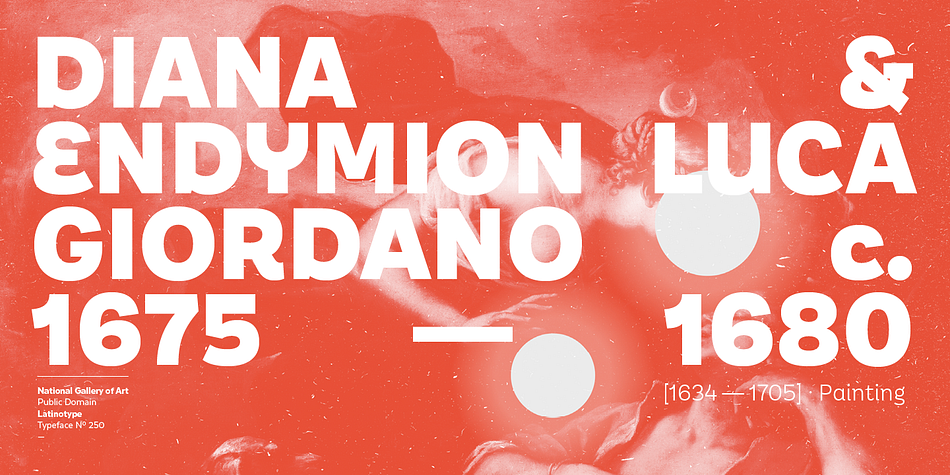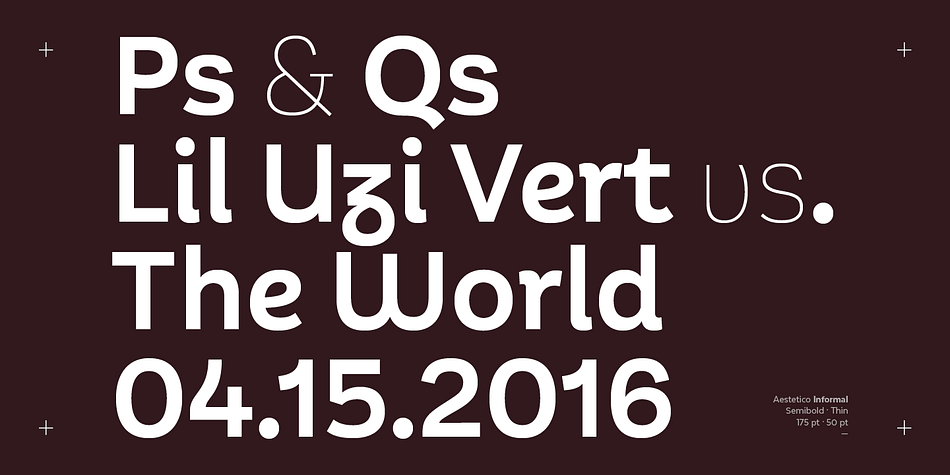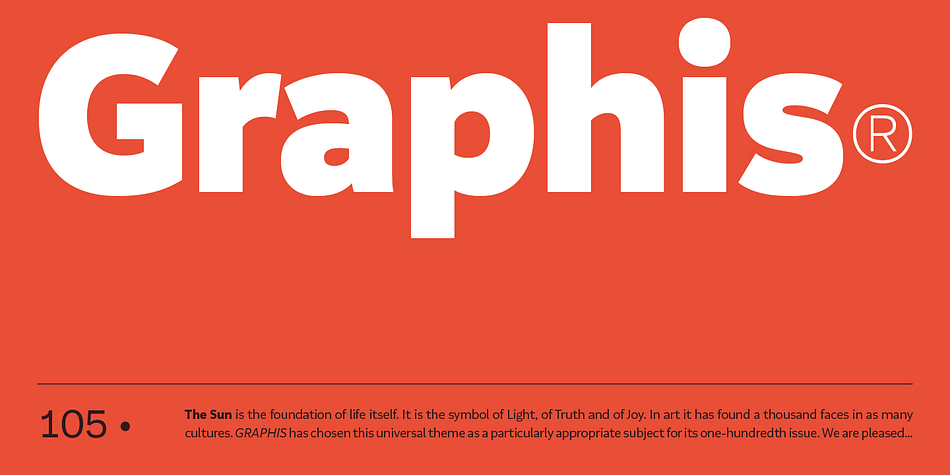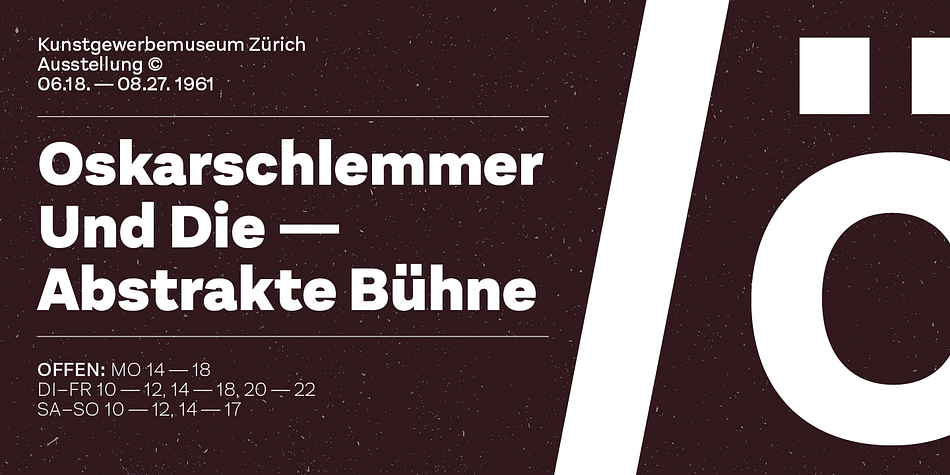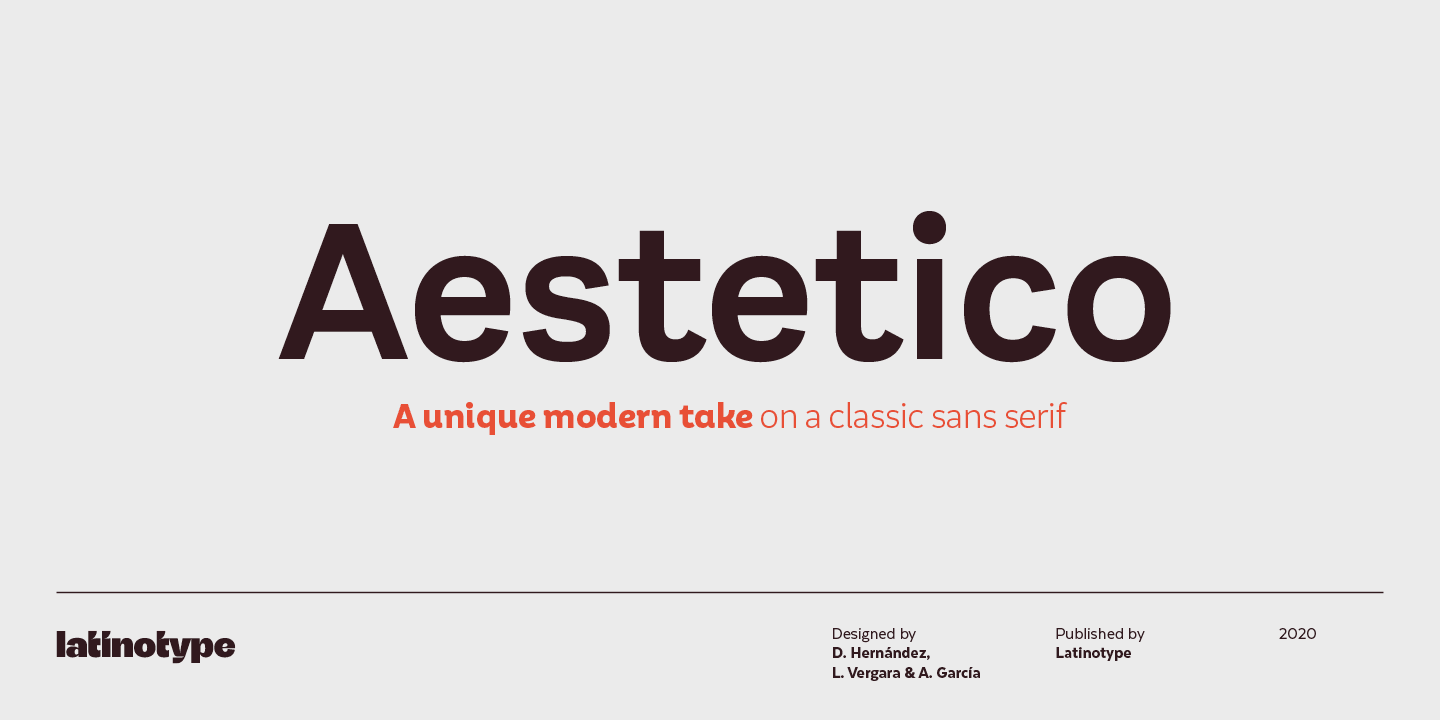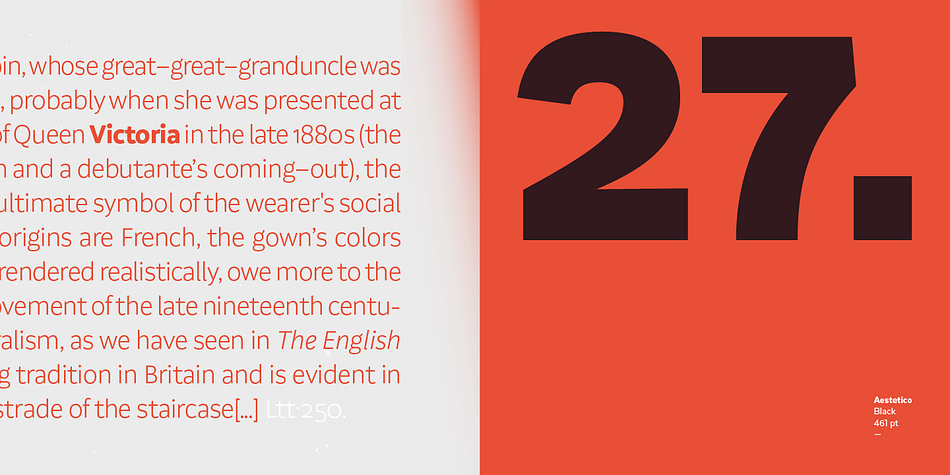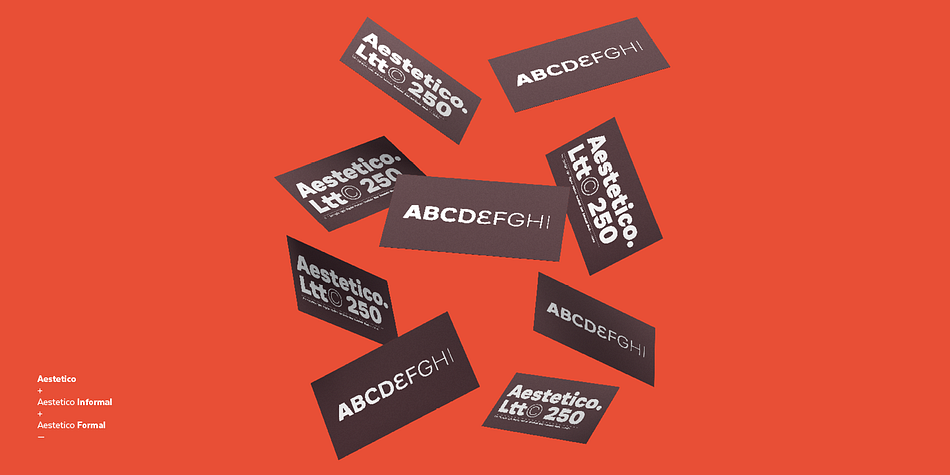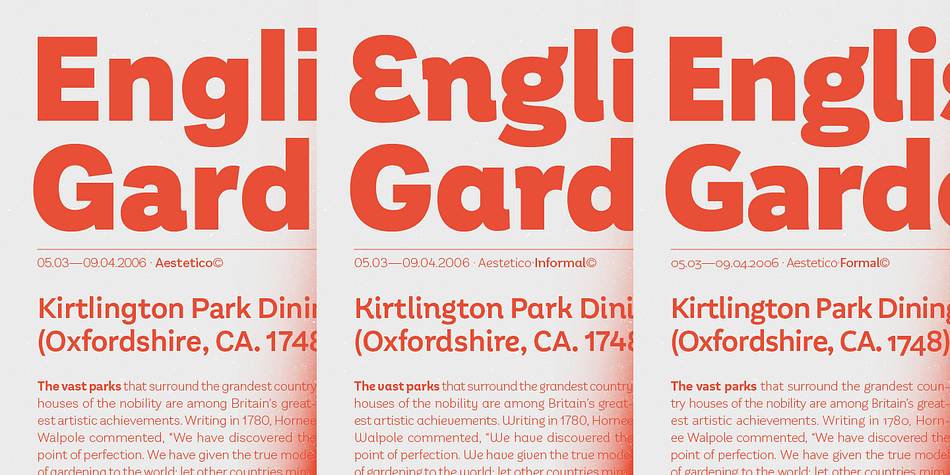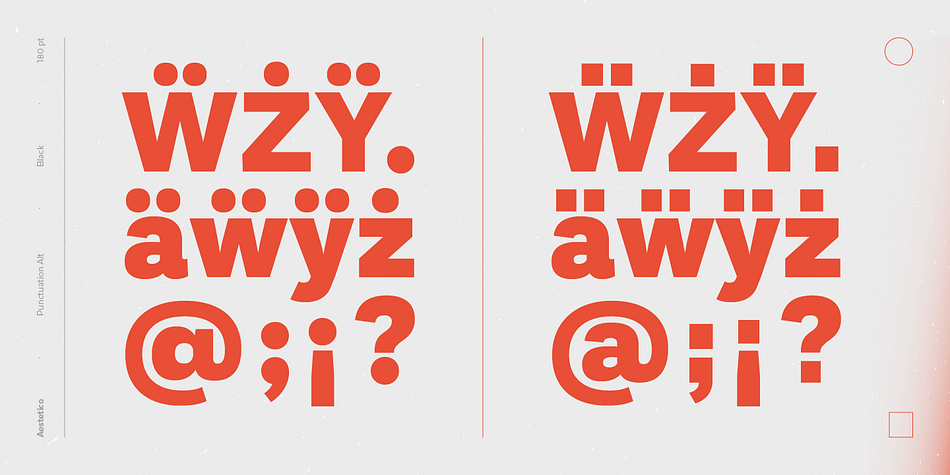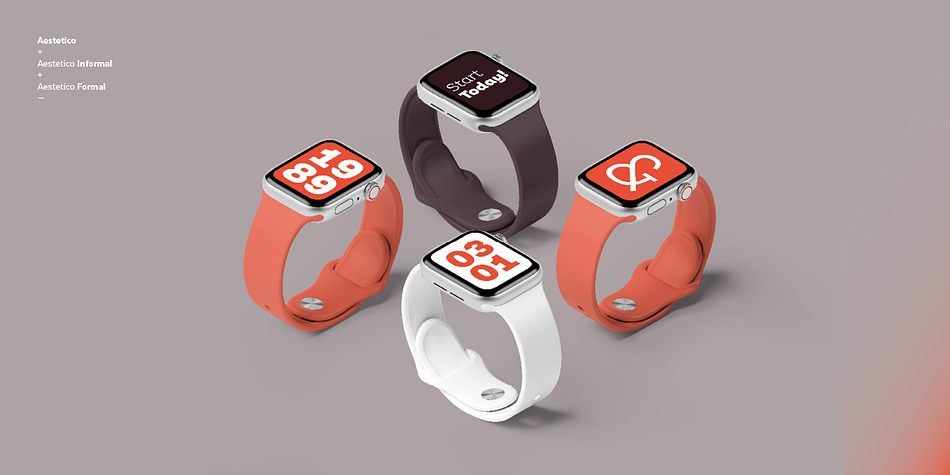
Designed by Daniel Hernández, Alfonso García and Luciano Vergara, Aestetico is a sans serif font family. This typeface has fifty-four styles and was published by Latinotype.
This beautiful font explores 3 very individual styles of one typeface. Each style pays homage to classic sans serif typefaces while adding contemporary flair to its characteristics. With both formal and informal styles, Aestetico explores how the shapes and curves of letters change their perception and focus. The informal letters are rounder and more quirky while the formal style utilizes more traditional sans serif letterforms. The whole set (54 styles) consists of 3 sister families, each in 9 weights with matching italics.
The 3 variants ensure every design project is covered by Aestetico; its versatile nature is perfect for a huge variety of applications from editorial design to branding, advertising, publications and digital.
As you would expect from Latinotype, this font comes with a standard character set (395 glyphs) and supports over 200 languages.